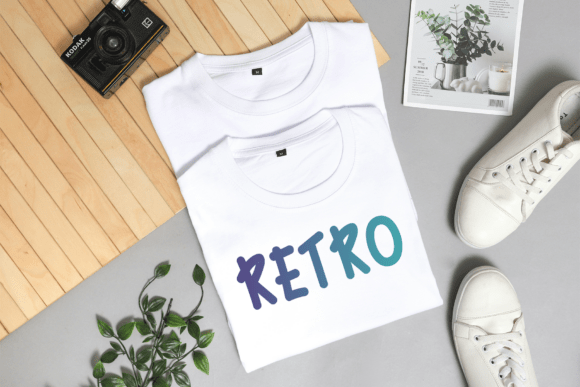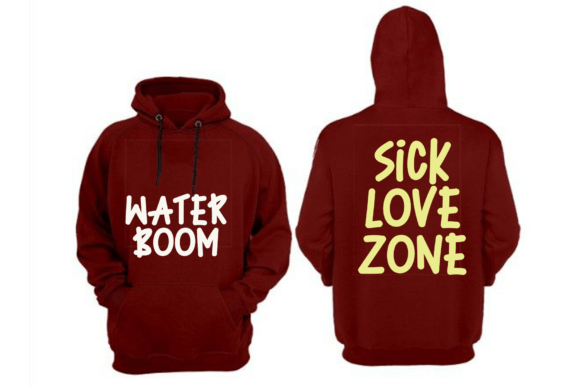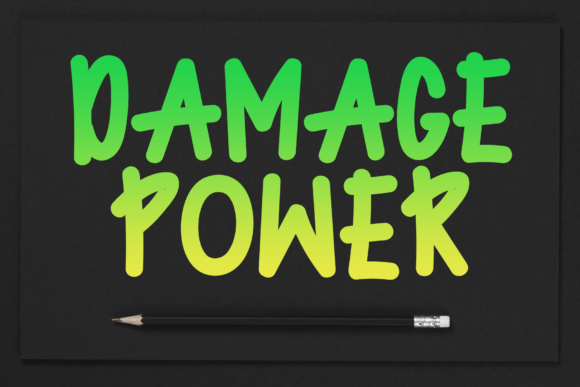
Introduction to Ligatures Font
Remember the moment when you finally nailed that creative project? The rush of excitement as all the elements came together, and your design sparkled with personality? That’s what Ligatures Font is all about – infusing your creative work with a dash of whimsy and high-quality style.
As a designer, you’re always on the lookout for that special something to elevate your designs. That’s where Ligatures Font comes in – a dynamic and modern sans serif font that combines bold strokes with quirky ligatures, making it the perfect design resource for titles, creative branding, posters, and classroom graphics.
Key Features of Ligatures Font
- High-Quality Typography: Ligatures Font is a carefully crafted design resource that offers crisp, clean, and visually appealing typography perfect for any creative project.
- Transparent Background: Ligatures Font comes with a transparent background, allowing for seamless integration with any design element, including images and graphics.
- Large Character Set: Ligatures Font includes a comprehensive character set, featuring over 500 glyphs, including Latin, Cyrillic, and Greek alphabets, as well as punctuation and symbols.
- High Resolution: This font is designed at a high resolution of 300 DPI, making it suitable for print and digital applications, including business cards, brochures, and websites.
- Customizable Ligatures: Ligatures Font offers customizable ligatures, allowing designers to create unique and creative combinations of letters that add an extra layer of visual interest to their design projects.
Honest Review: Ligatures Font
As a designer, I’m always on the lookout for high-quality design resources that can elevate my creative projects. The Ligatures Font is one such find that has caught my attention.
- Beautiful typography: The Ligatures Font boasts elegant and sophisticated typography that can add a touch of class to any design project.
- High-quality design: The font is well-designed and meticulously crafted, making it a great addition to any design resource collection.
- Transparent background: The font’s transparent background makes it easy to use on any design project, regardless of the background color.
- Limited font styles: While the Ligatures Font is a great addition to any design resource collection, it’s limited in terms of font styles and weights.
- Not suitable for large-scale projects: Due to its limited font styles, the Ligatures Font may not be the best choice for large-scale projects that require a wide range of font styles.
Overall, I’m impressed with the Ligatures Font’s high-quality design and elegant typography. While it may have some limitations, it’s an excellent choice for designers working on smaller projects or those who want to add a touch of sophistication to their design work.
Ligatures Font: A High-Quality Design Resource for Creative Projects
Tips for Getting the Most Out of Ligatures Font
For optimal results, use Ligatures Font on a transparent background and pair it with other high-quality design resources.
Ligatures Font is ideal for creative projects, such as:
- Brochures and flyers
- Infographics and presentations